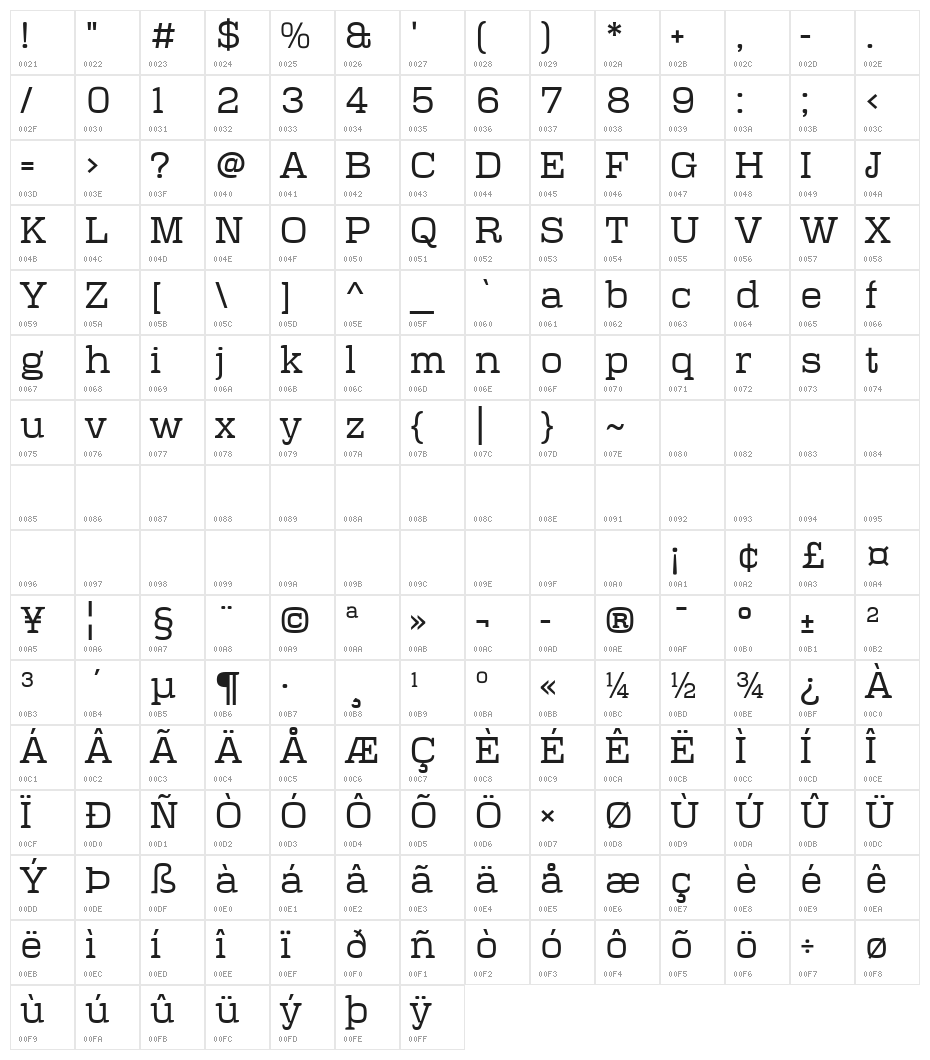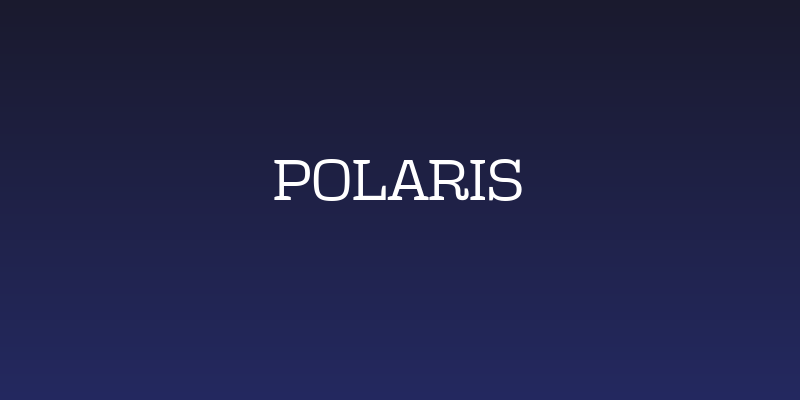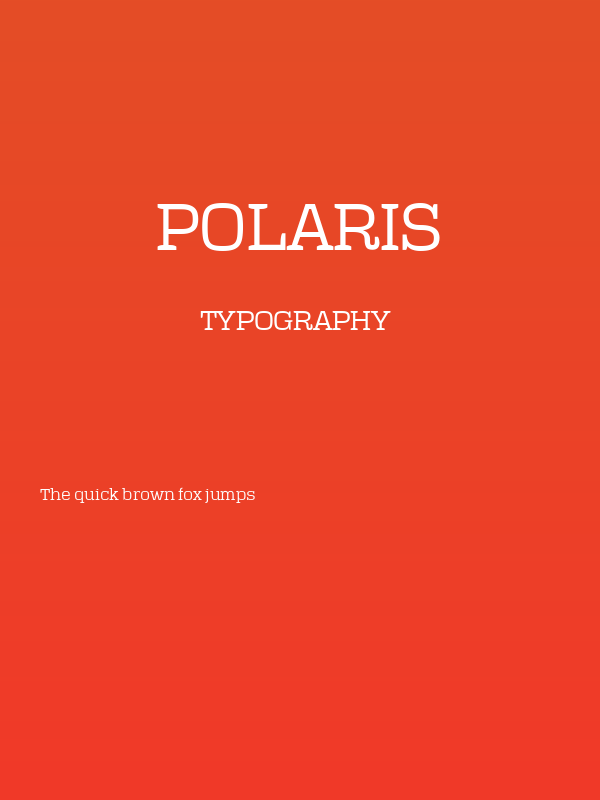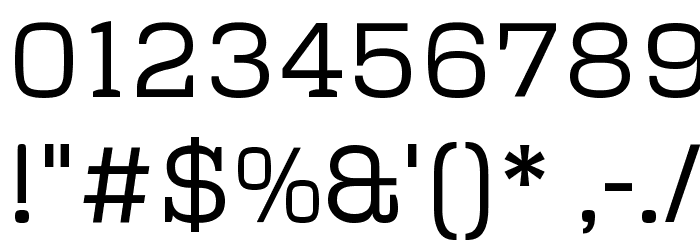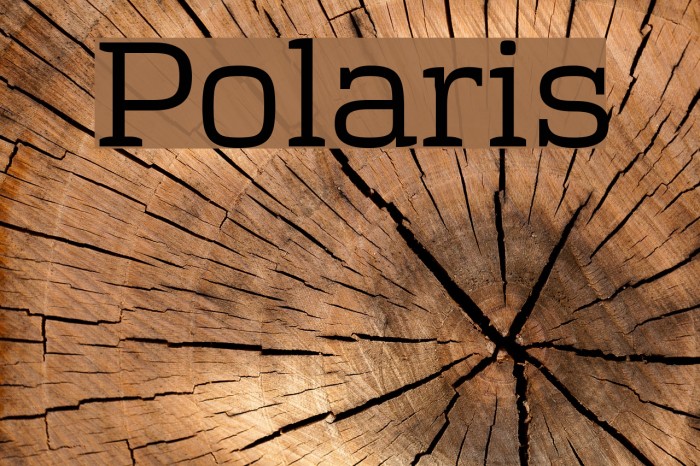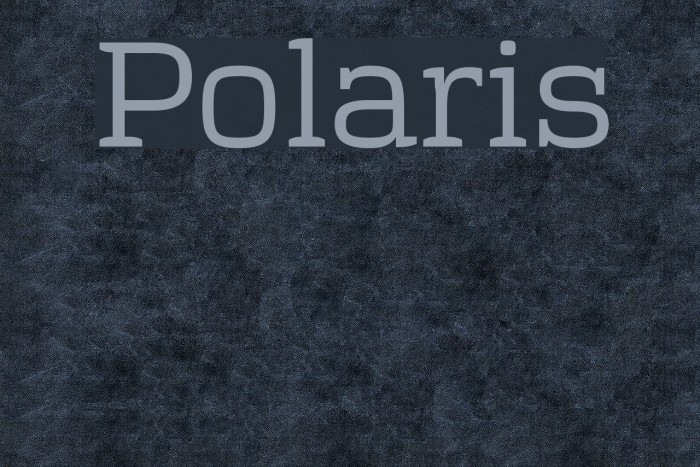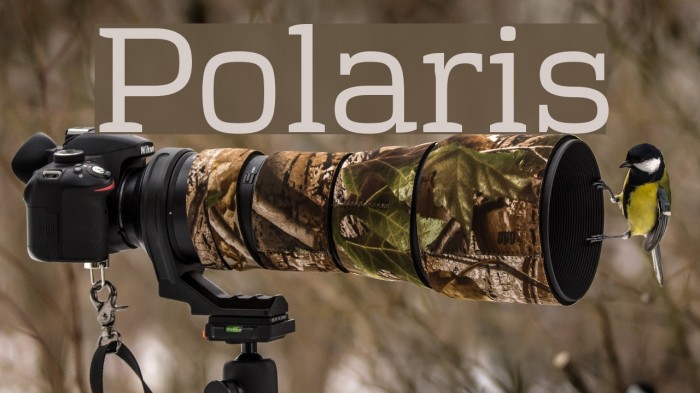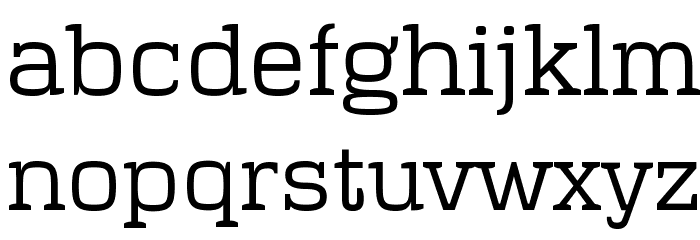
Polaris Font
Polaris Description
This font features a clean and modern design with a geometric structure. The characters are well-balanced with a consistent stroke width, providing a harmonious and professional appearance. The uppercase letters are bold and commanding, while the lowercase letters maintain a friendly and approachable feel. The numerals are clear and easy to read, making them suitable for various applications. The special characters are distinct and integrate seamlessly with the rest of the typeface, ensuring versatility in design projects.
| Proposed Projects | Ideal for branding, editorial design, web design, and advertising materials. |